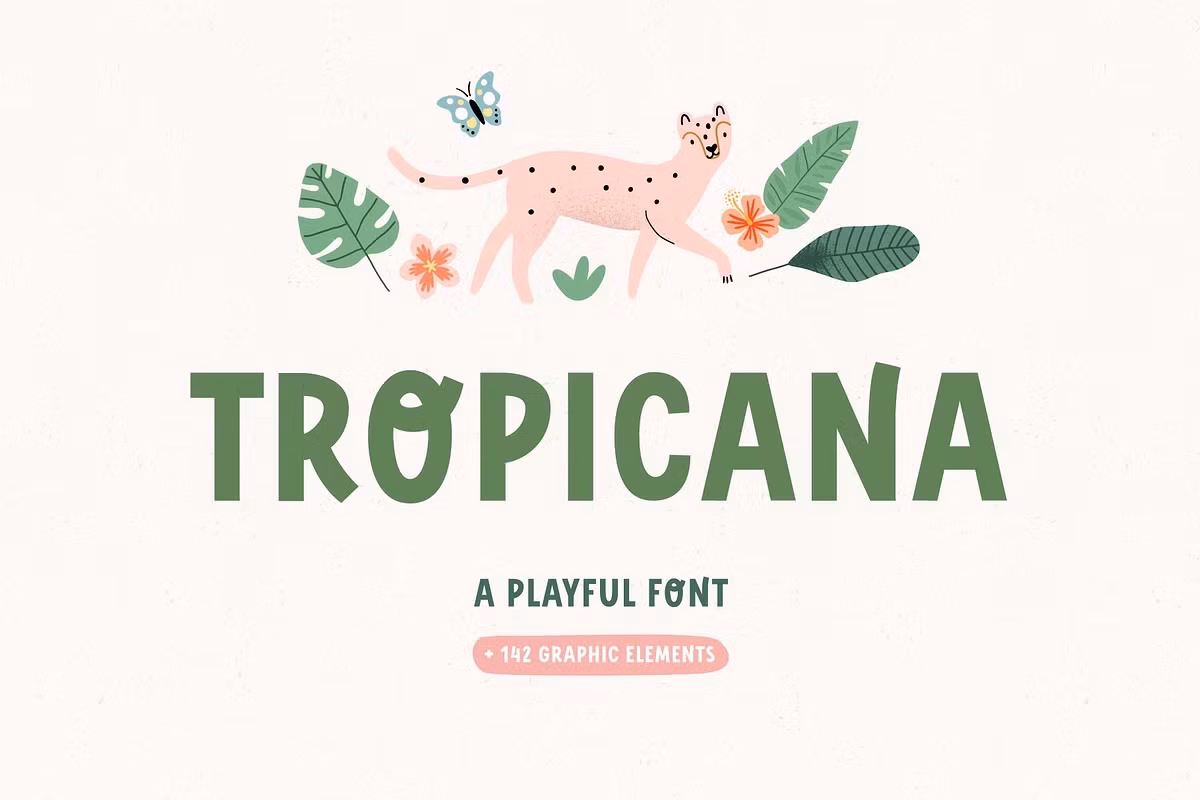
TROPICANA Playful Font Free Download is a bright and energetic typeface that captures the fun and carefree spirit of summer. With its bold shapes and quirky personality, this font is perfect for party invitations, beach-themed graphics, kids’ products, tropical packaging, and vibrant social media content.
Its rounded forms and whimsical style make it easy to read while still standing out with flair. Whether you're designing a fun poster, a fruity label, or a sunny apparel line, Tropicana adds a splash of joy and creativity to every project.